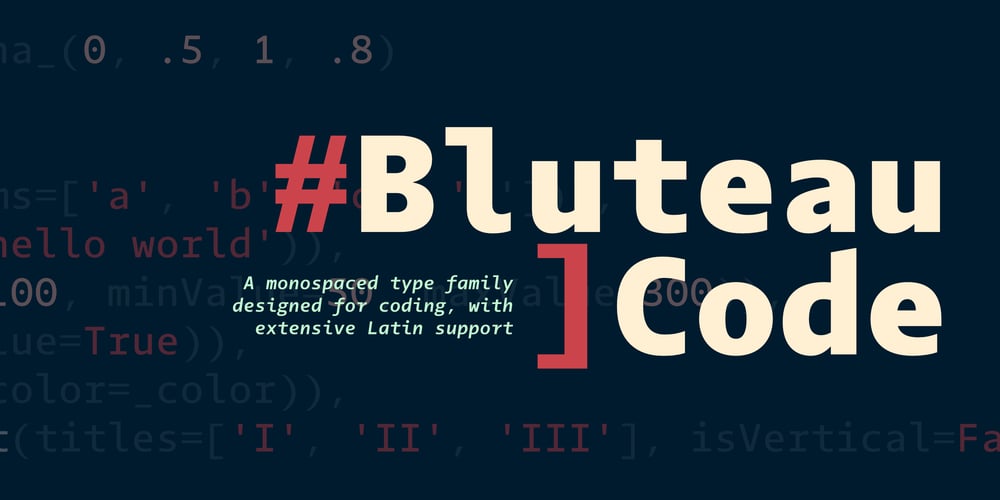
Bluteau Code
Bluteau Code font
Bluteau Code Font Family was designed by Dino dos Santos, Pedro Leal and published by DSType. Bluteau Code contains 14 styles and family package options. Bluteau family got its name from the priest Raphael Bluteau, the great Portuguese language lexicographer and author of the Portuguese and Latin Vocabulary (1712—1721). Bluteau is a very complex type family, with Sans and Serif, each with Regular, Pro, Arabic, Hebrew, and Glossary versions. For improved design outcomes, we added Bluteau Slab and Bluteau Fine, two styles that sit on the extreme of the typographic spectrum, and Bluteau Code, a sturdy monospaced version of Bluteau Sans, specially designed for programming, both available in standard and Pro versions. The standard Bluteau contains an extensive Latin character set, with small capitals and Vietnamese, while the Pro version adds support for Extended Cyrillic and Polytonic Greek. Bluteau Glossary is even more complex, with full IPA support, Petit Caps, and many miscellaneous symbols. Our magnum opus is Bluteau Math. With over five thousand glyphs, Bluteau Math aims to cover all necessities for complex mathematic requirements. Among such an overwhelming range of glyphs it is possible to find Blackletter, Script, Sans, Double Struck and Italic letters, Delimiters, Root Symbols and Arrows. Generally speaking, Bluteau is a calm and unobtrusive typeface with clear, differentiated letterforms. Designed as a tool for scientific texts, Bluteau is available in seven weights ranging from Light to Heavy and matching Italics.